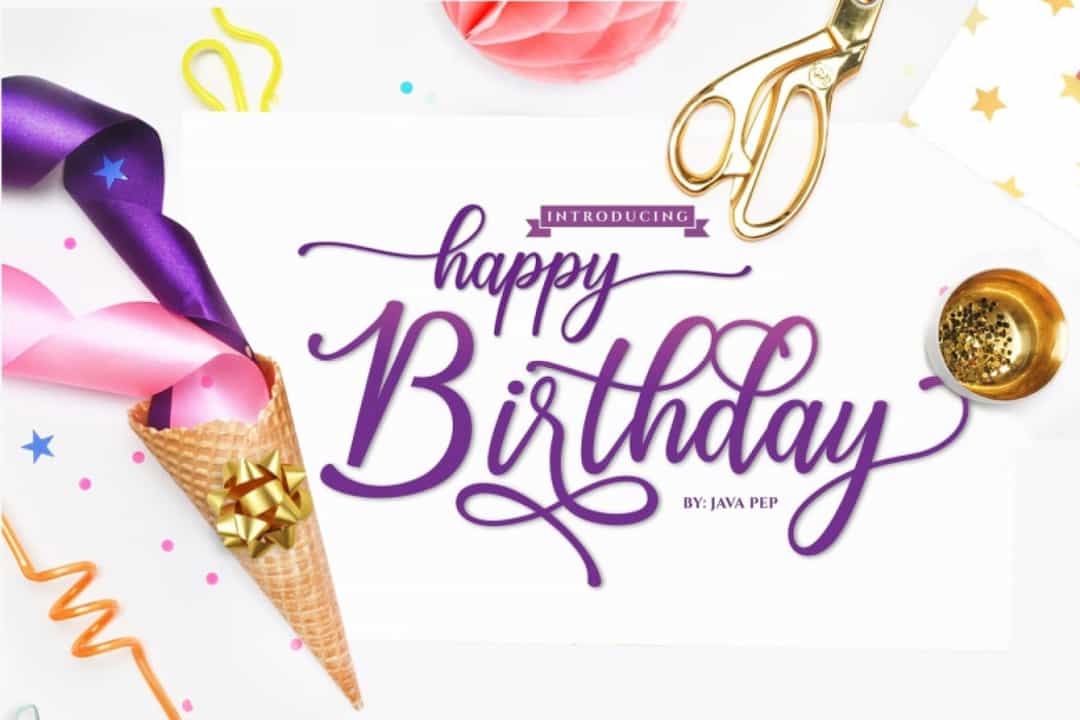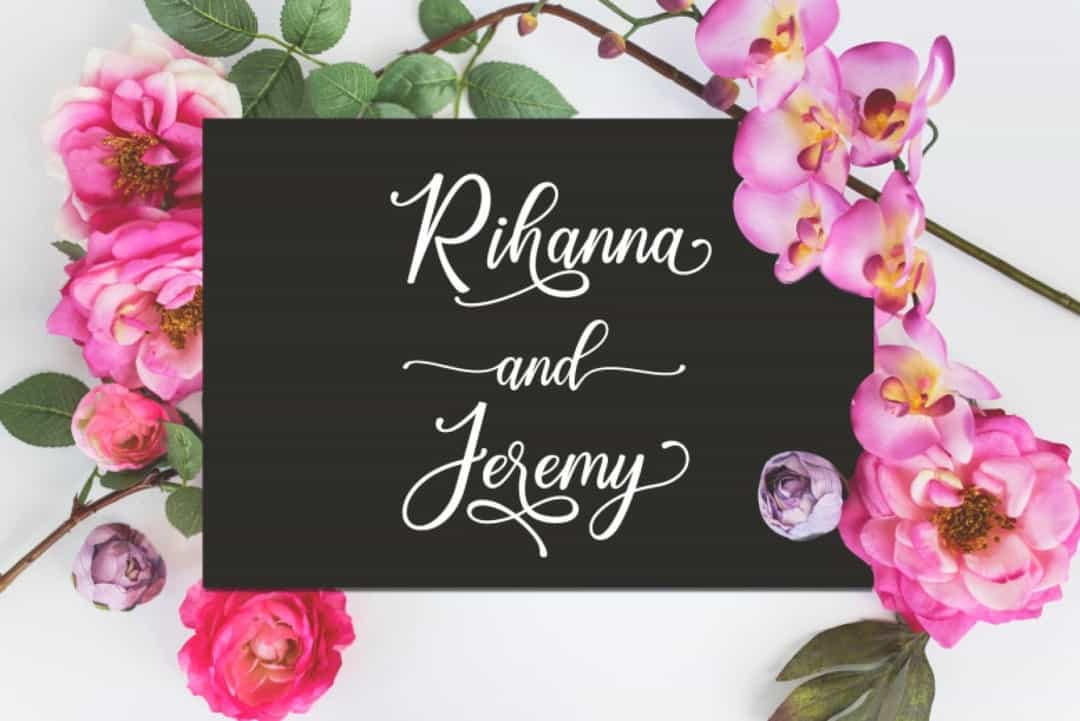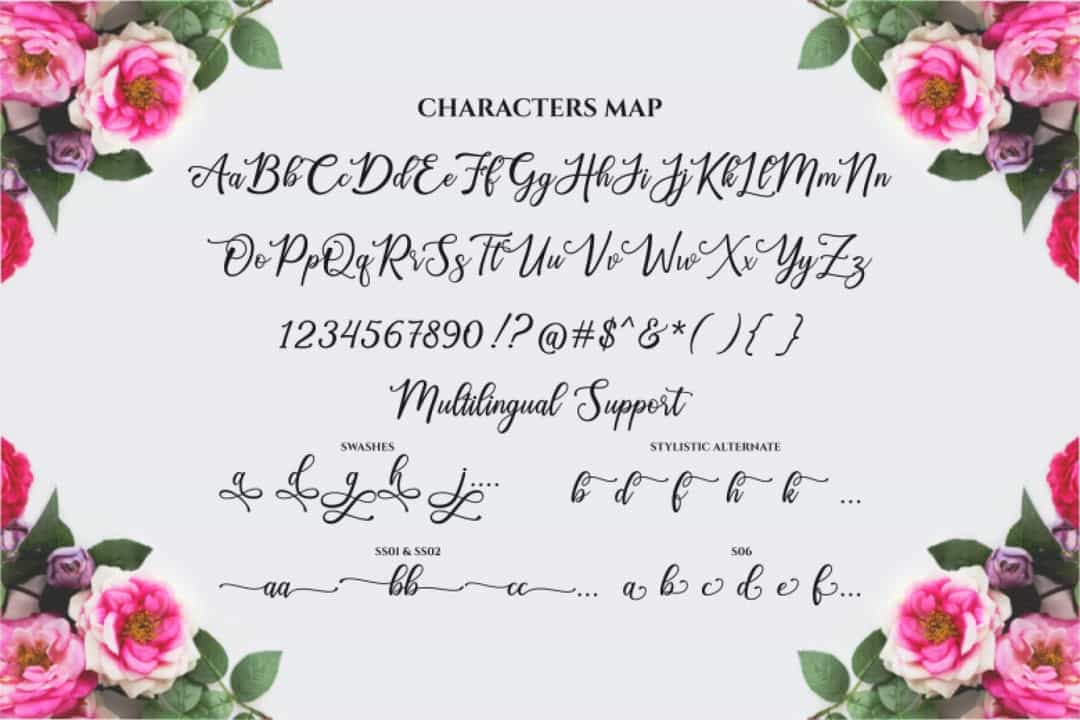
Happy Birthday font is a captivating script font with an edge, designed specifically to give greeting cards an eye-catching appearance. OpenType features such as alternates, swashes and stylistic alternates (SS01 to SS06) make Happy Birthday font suitable for use across 17 languages – ideal for greeting cards wedding invitation cards signature marks etc.